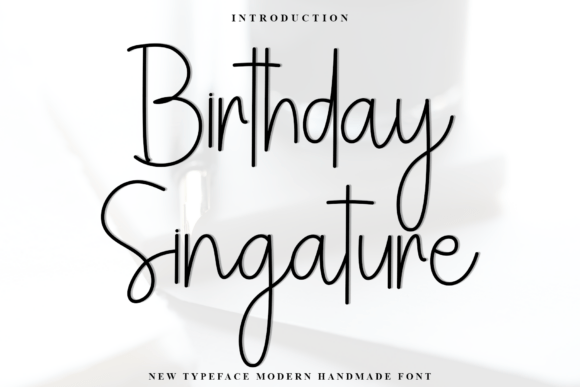
The Magic of Typography: Unveiling the Birthday Font
As you sit down to craft the perfect birthday card for your loved one, you’re hit with a wave of creativity. You want the message to be heartfelt, the design to be beautiful, and the overall feel to be merry and bright. It’s in these moments that a well-chosen font can make all the difference.
Enter the Birthday Font, a festive and whimsical typeface designed to capture the essence of the holiday season. With its decorative elements and playful flair, this font adds a touch of enchantment to any design. Perfect for greeting cards, gift tags, and holiday-themed projects, the Birthday Font brings a cheerful and nostalgic ambiance to your words.
For designers, the Birthday Font is a valuable tool in their creative arsenal. With its PUA encoding, accessing all the amazing glyphs and ligatures is a breeze, allowing you to let your typography shine with the magic of this special font.
Birthday Font Key Features
- Unique Characteristics: The Birthday Font features a playful, cursive script with decorative flourishes, making it ideal for celebratory designs and party invitations.
Birthday Font Review
Overall, I’d say the Birthday Font is a fun and playful addition to any design project. It works well ✨ for celebrations, parties, and other special occasions. The font’s bright and cheerful aesthetic is sure to grab attention and put a smile on people’s faces. It’s also very easy to read, making it perfect for use in invitations, banners, and other promotional materials.
Here are some specific things that work well:
- Its unique and whimsical design makes it stand out from more traditional fonts.
- It’s highly customizable, allowing you to adjust the color, size, and style to fit your project’s needs.
- It’s a great choice for creating a festive atmosphere, whether it’s for a birthday, anniversary, or other special occasion.
- It may not be the best choice for formal or professional projects, as it’s a bit too playful and casual.
Overall, I think the Birthday Font is a great choice for designers who want to add some fun and personality to their projects. Just be sure to use it wisely and consider the context and audience before making it the centerpiece of your design.
Use the Birthday Font to create eye-catching birthday invitations, party decorations, and social media posts.
Experiment with different font sizes and styles to create a unique and festive look.
Combine the Birthday Font with other festive elements, such as balloons and confetti, to create a fun and celebratory atmosphere.
Alternatives to Birthday Font for Designers
Great Vibes is a modern, elegant script font perfect for creating a celebratory atmosphere. It’s ideal for birthday invitations, party decorations, and social media posts. Great Vibes has a more sophisticated feel compared to Birthday Font, making it suitable for adult-themed parties or high-end events.
Cream Soda is a playful, cursive font that exudes a sense of fun and nostalgia. It’s perfect for birthday cards, party banners, and kids’ parties. While similar to Birthday Font in its playful nature, Cream Soda has a more casual, laid-back feel that’s better suited for younger audiences.